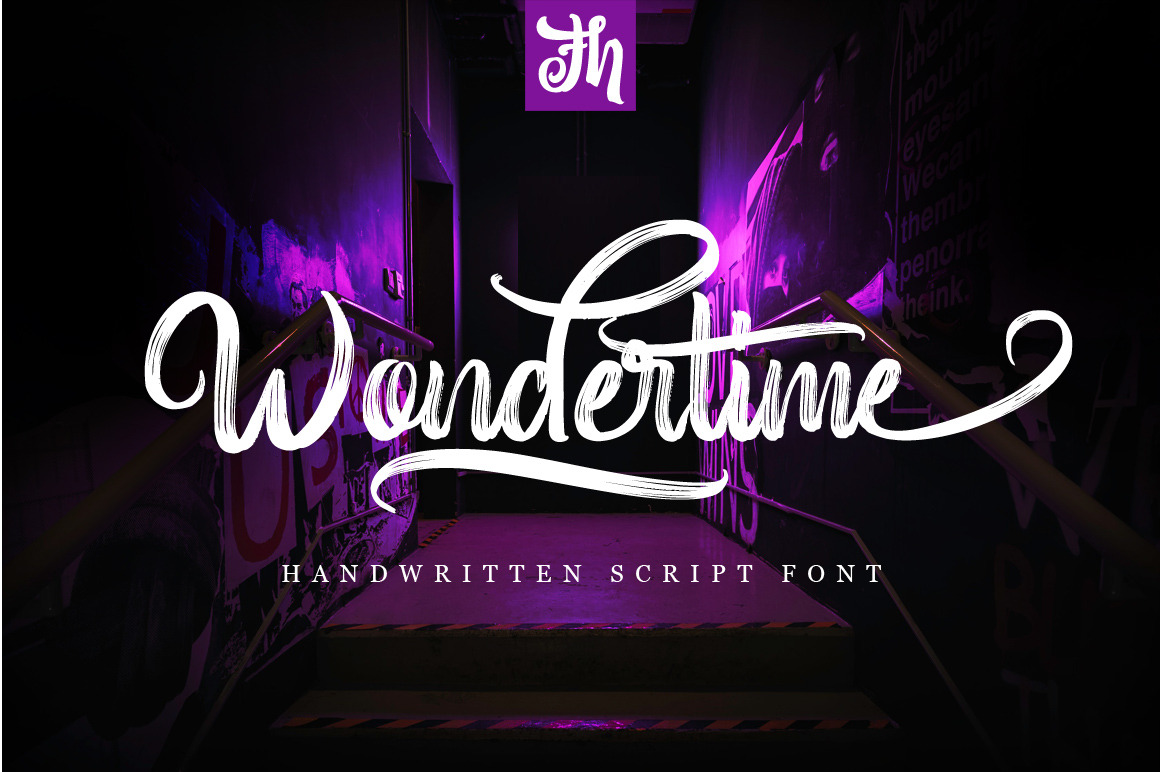
Wondertime Handwriting Script Font is perfect for children's book illustrations, magical storybook covers, whimsical party invitations, dreamy wedding stationery, enchanting fairy tale materials, childhood memory scrapbooks, imaginative brand identity, fantasy-themed restaurants, wonder-filled educational materials, and nostalgic greeting cards.
Wondertime Handwriting Script Font is exciting because it captures the innocent magic and boundless imagination of childhood wonder, creating a script typeface that embodies the joy, curiosity, and enchanting possibilities that make life truly magical. This font brings whimsical charm and dreamy sophistication to any project, making it ideal for brands that want to convey wonder, imagination, and the timeless magic of childhood dreams. Its playful character and enchanting appeal create an atmosphere of pure joy that resonates with audiences seeking to rediscover the magic in everyday moments.
Wondertime Handwriting Script Font family includes regular, light, and bold weights, plus magical flourishes, whimsical ornaments, and enchanting decorative elements, providing designers with comprehensive tools for creating wonder-filled typography and magical brand experiences that celebrate imagination.
This delightful magical typeface combines childhood wonder aesthetics with contemporary design functionality, making Wondertime Handwriting Script Font Free Download a perfect choice for projects celebrating imagination and the magic of childhood dreams. The font's lovingly crafted letterforms feature playful proportions and whimsical styling that reflect the innocent joy and boundless creativity of childhood imagination.
Whether you're designing children's entertainment branding, magical event materials, or wonder-filled educational content, Wondertime Handwriting Script Font delivers unmatched whimsical authenticity and magical appeal. The font performs beautifully across both imaginative personal applications and commercial environments where wonder and childhood magic create unforgettable experiences.
Creative professionals appreciate Wondertime Handwriting Script Font for its ability to instantly communicate joy and wonder while creating emotional connections with audiences seeking magical experiences and childhood nostalgia. The font's enchanting character makes it particularly effective for children's brands, family entertainment, and wonder-filled educational programs.
Each character reflects the boundless imagination of childhood dreams, featuring playful curves and magical details that create typography as wonderful and enchanting as fairy tales, childhood adventures, and the limitless possibilities of imagination.